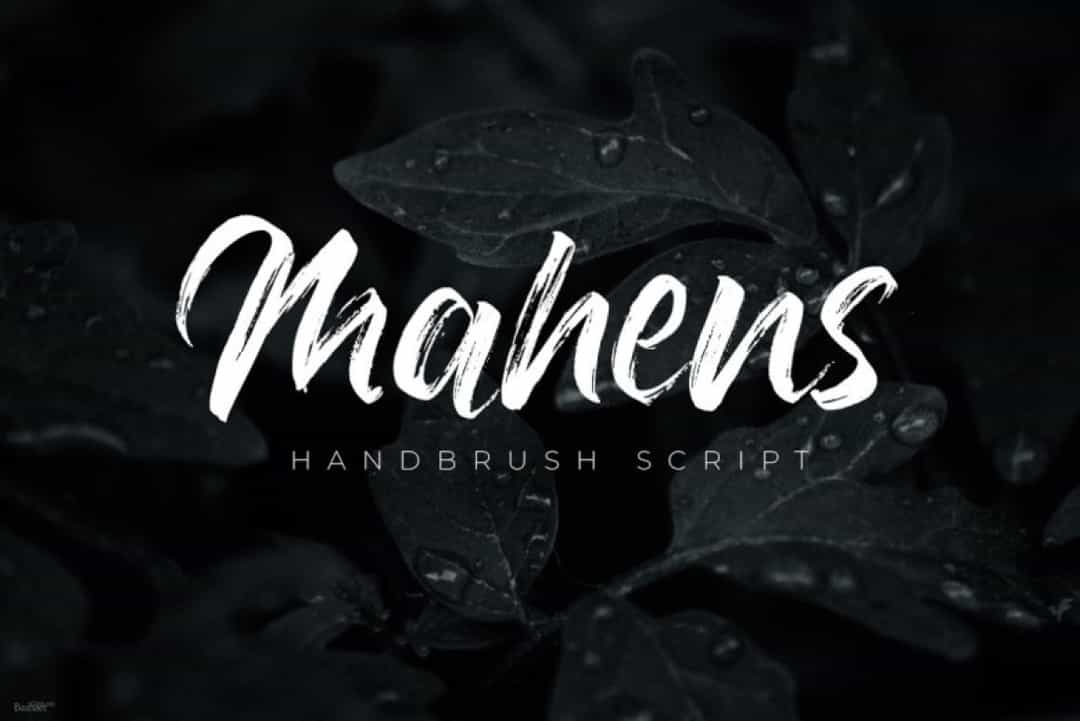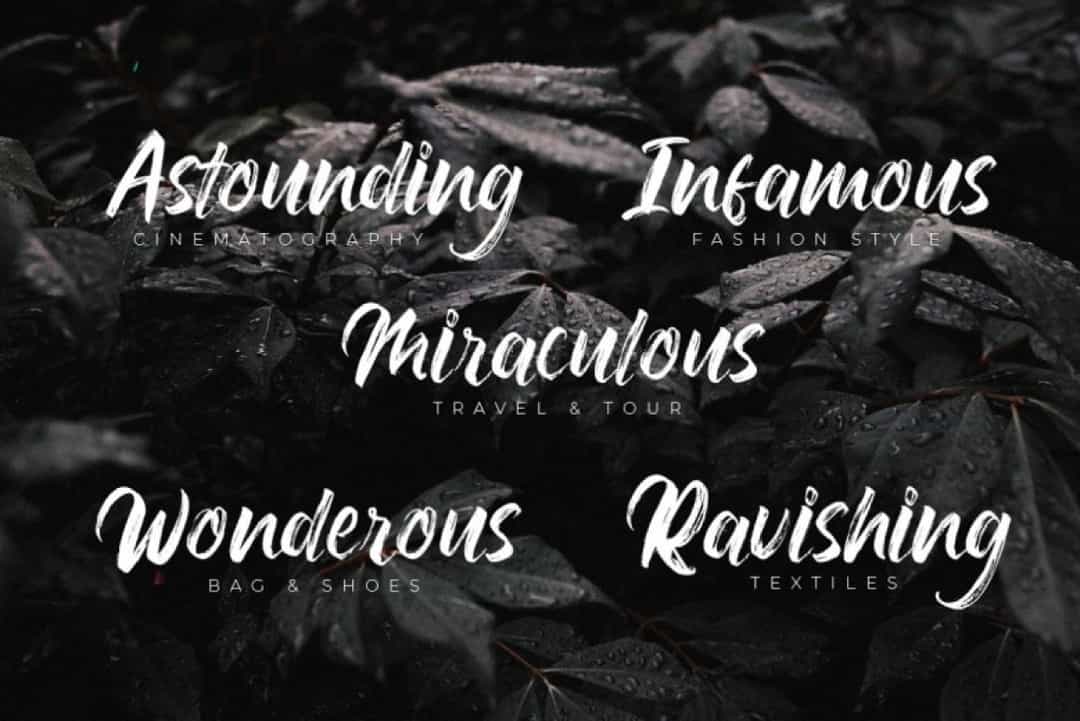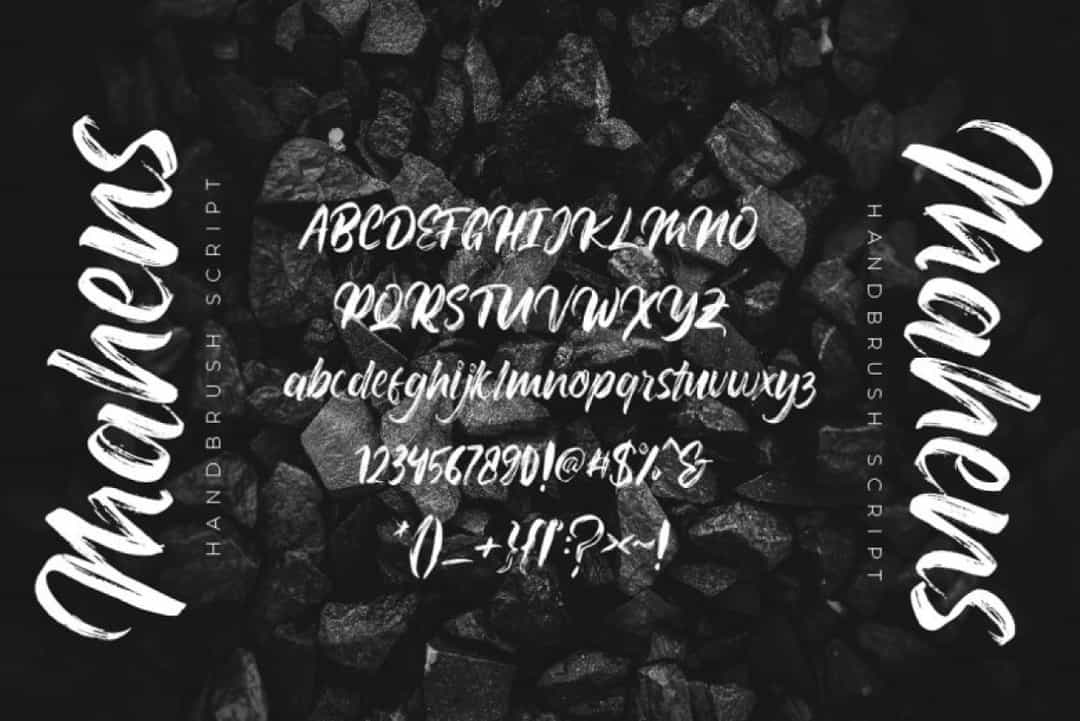
Mahens is a dry hand-written script font designed to work seamlessly together and enable fast, effortless hand-lettering creation. Ideal for logos, handwritten quotes, product packaging headers and posters, merchandise sales displays, social media posts and greeting cards.